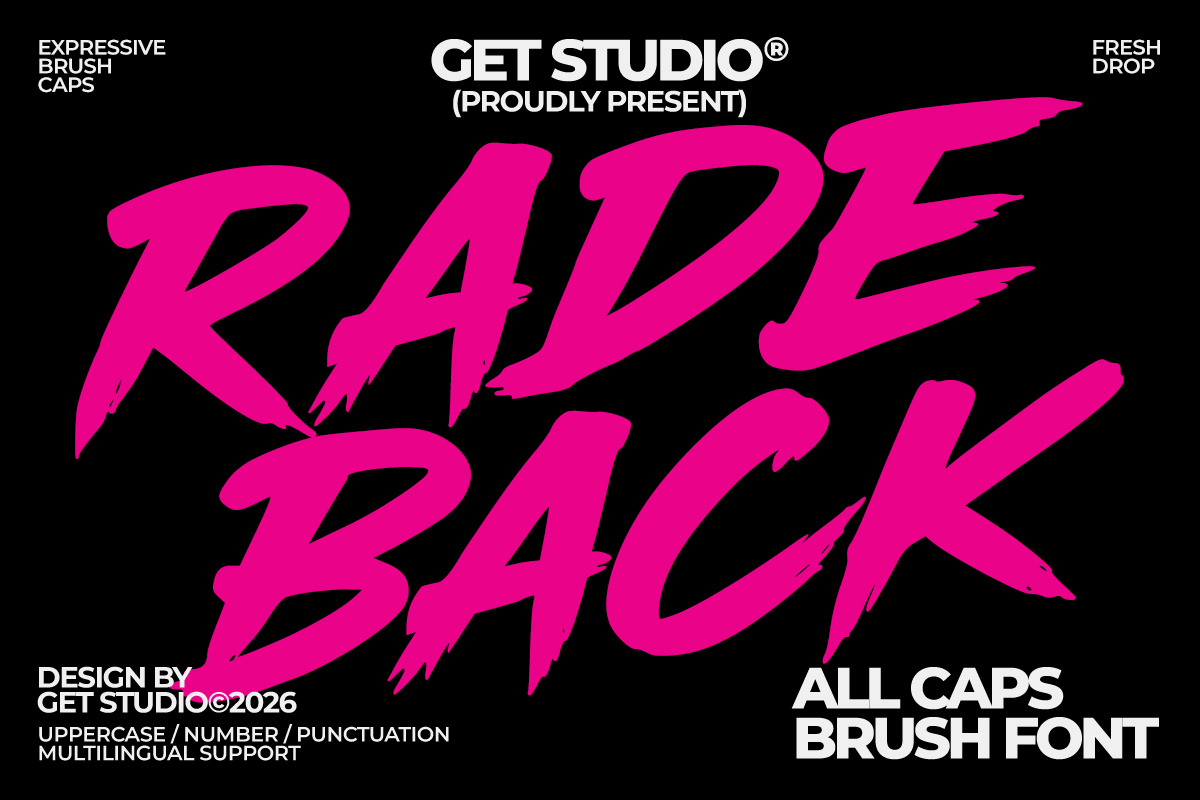
Radeback - Brush Display Font
Radeback is a bold all-caps brush display font built to deliver strong visual impact. With its rough strokes and expressive hand-painted feel, it captures a raw, energetic style that instantly stands out in any design.
Designed for attention-grabbing headlines, Radeback brings a perfect balance between modern edge and organic brush texture—making it ideal for posters, branding, social media, merchandise, and more.
Perfect For: Posters, music events, street branding, sports graphics, social media, YouTube thumbnails, packaging, apparel, and bold headline designs.